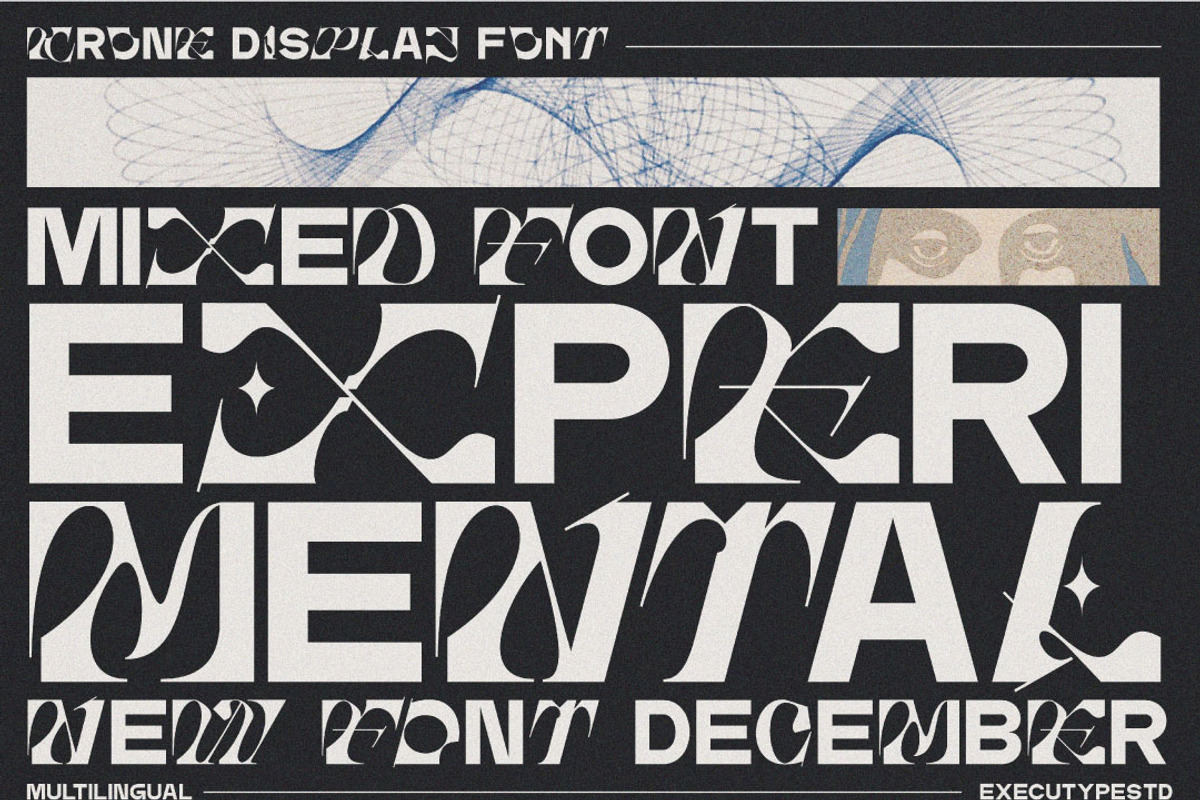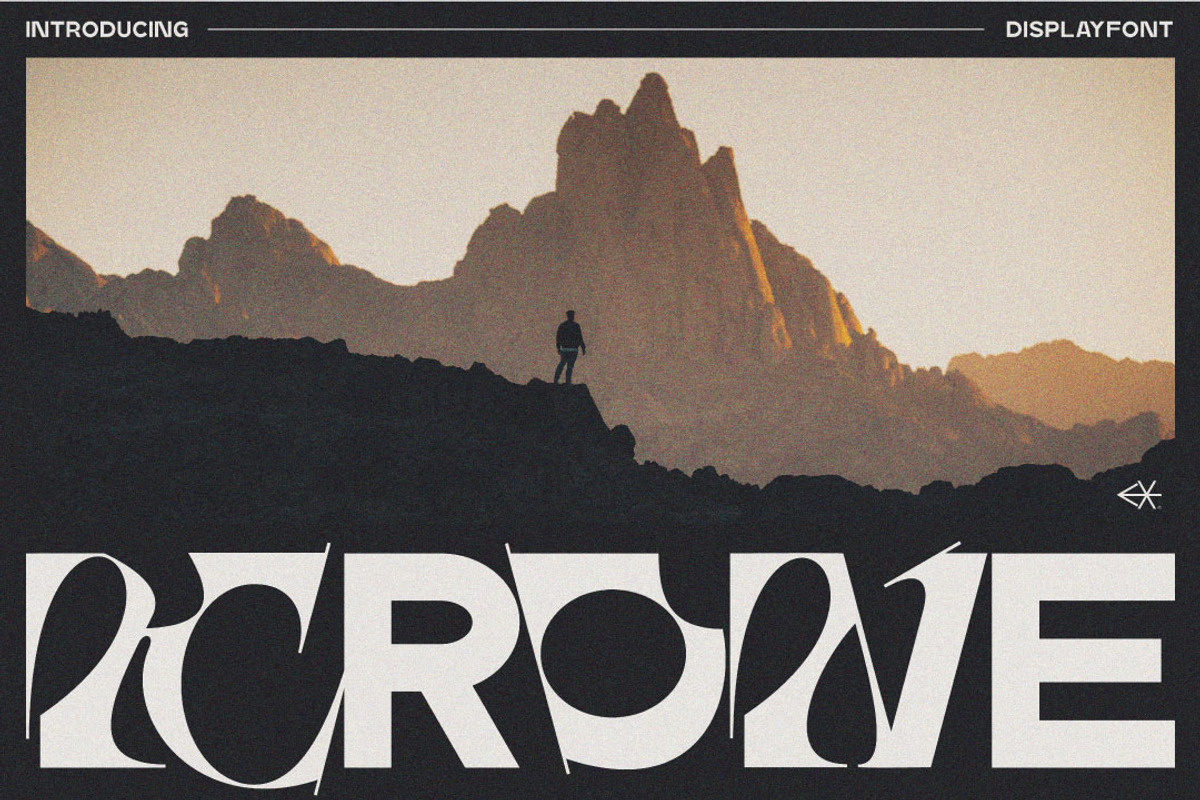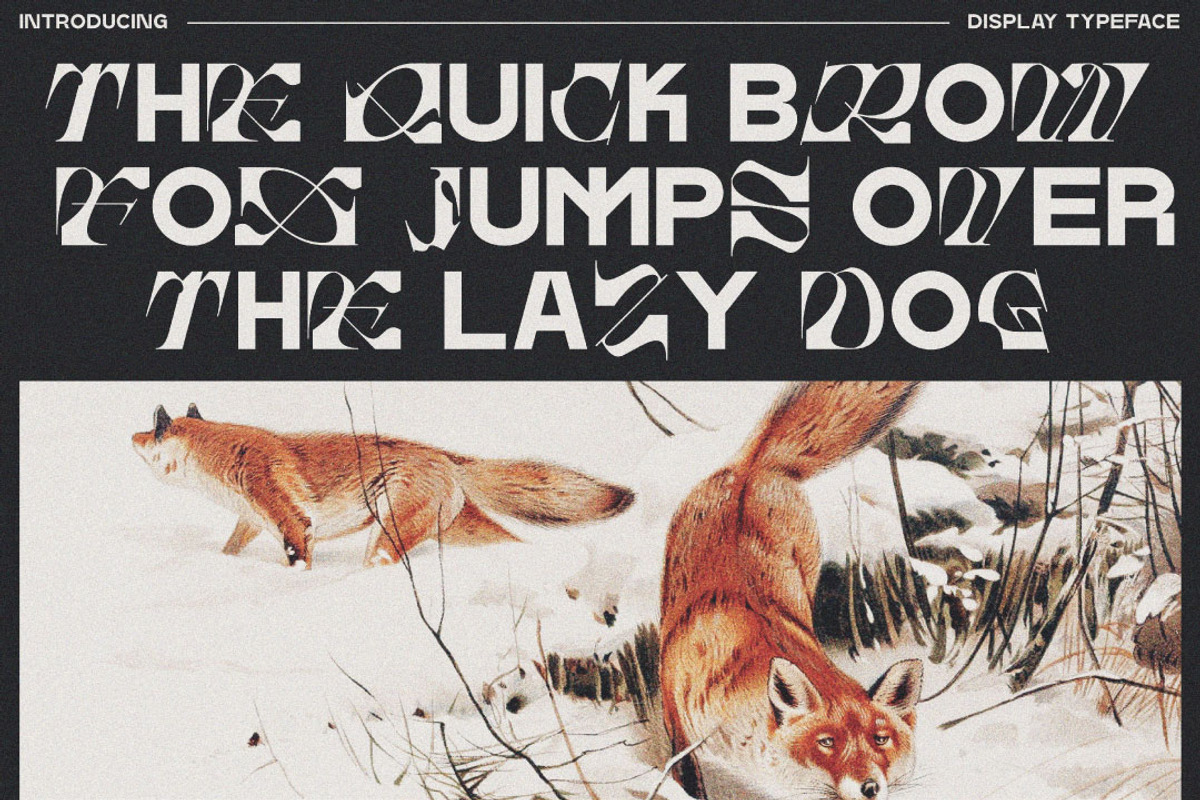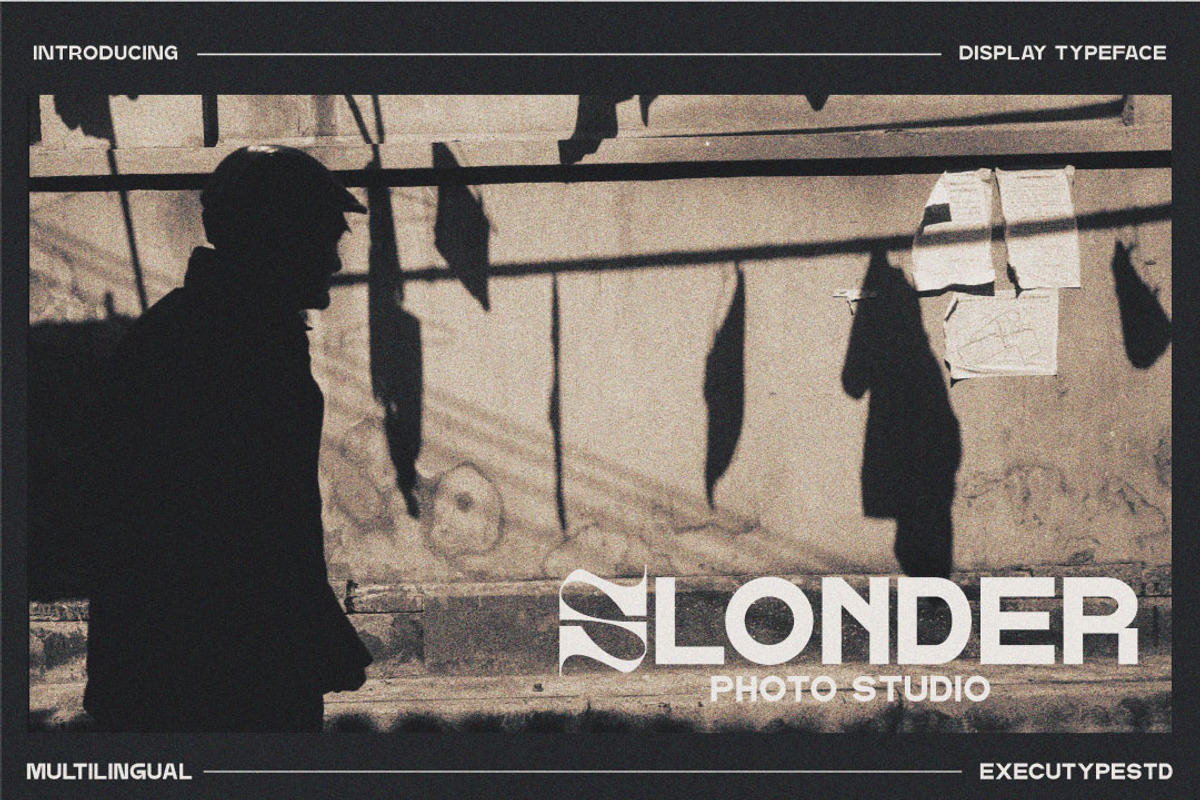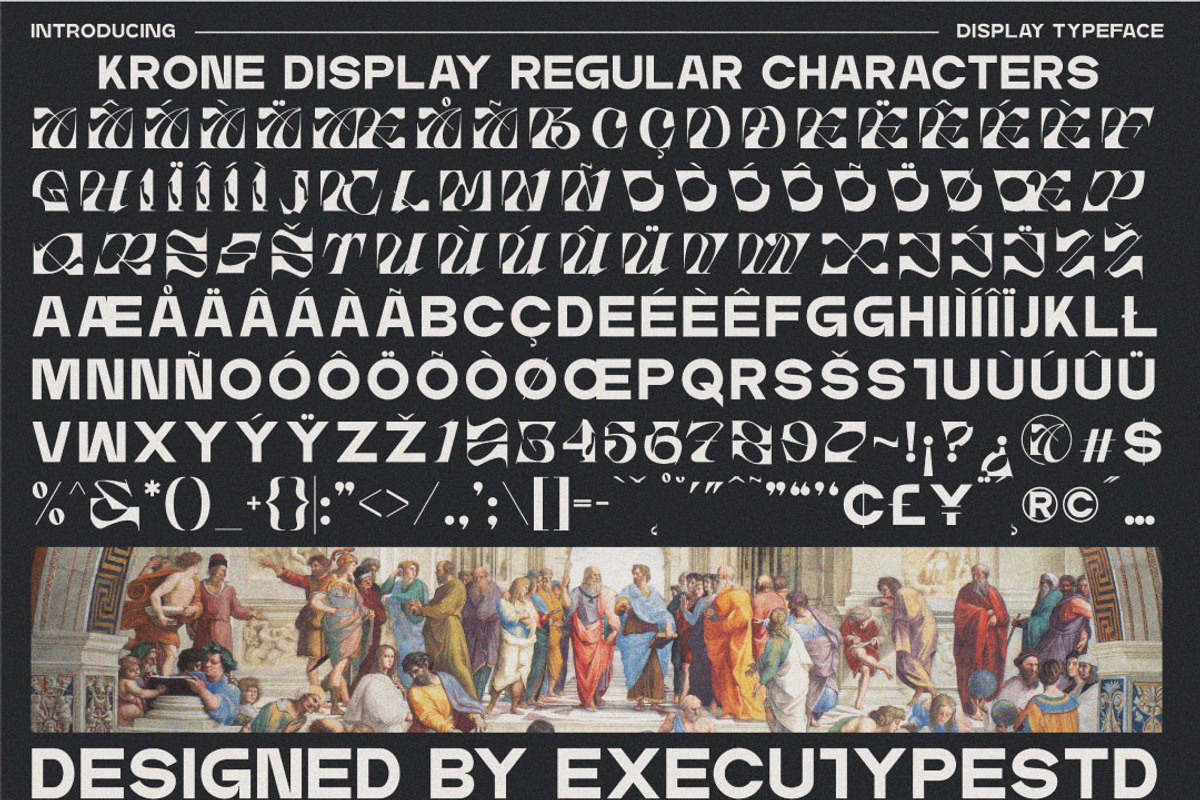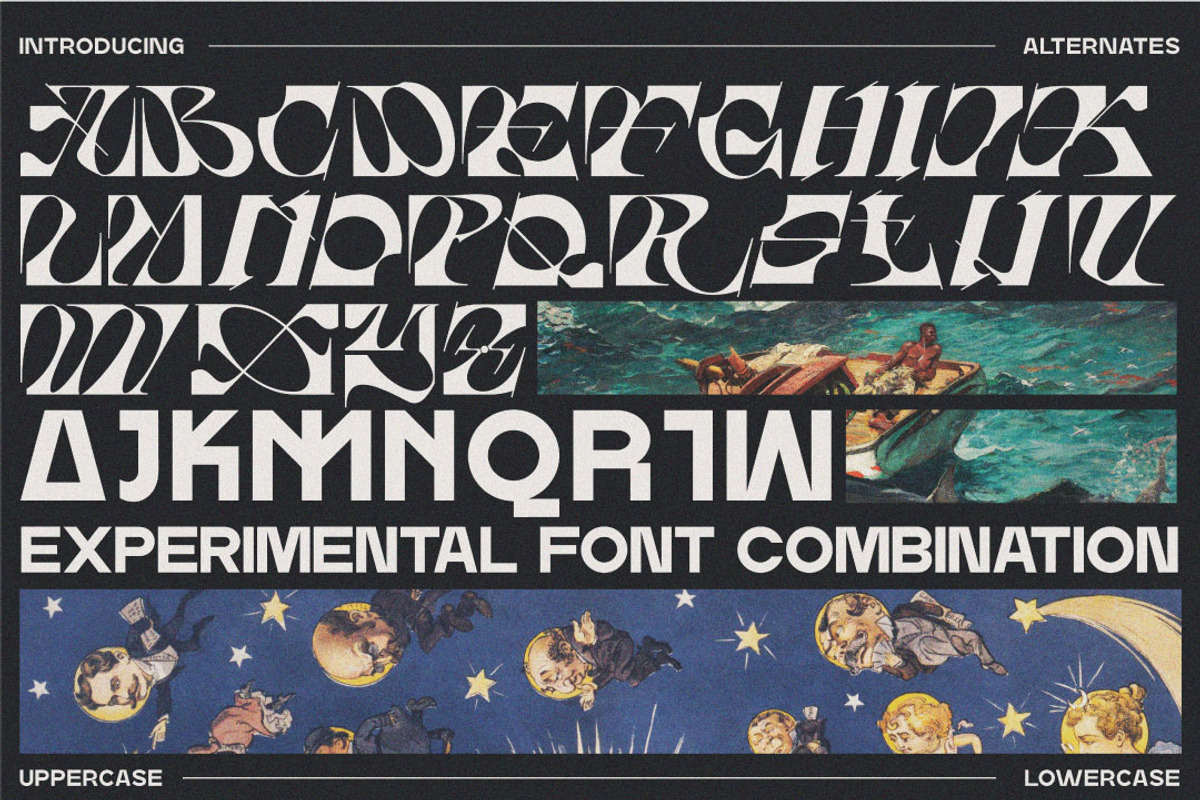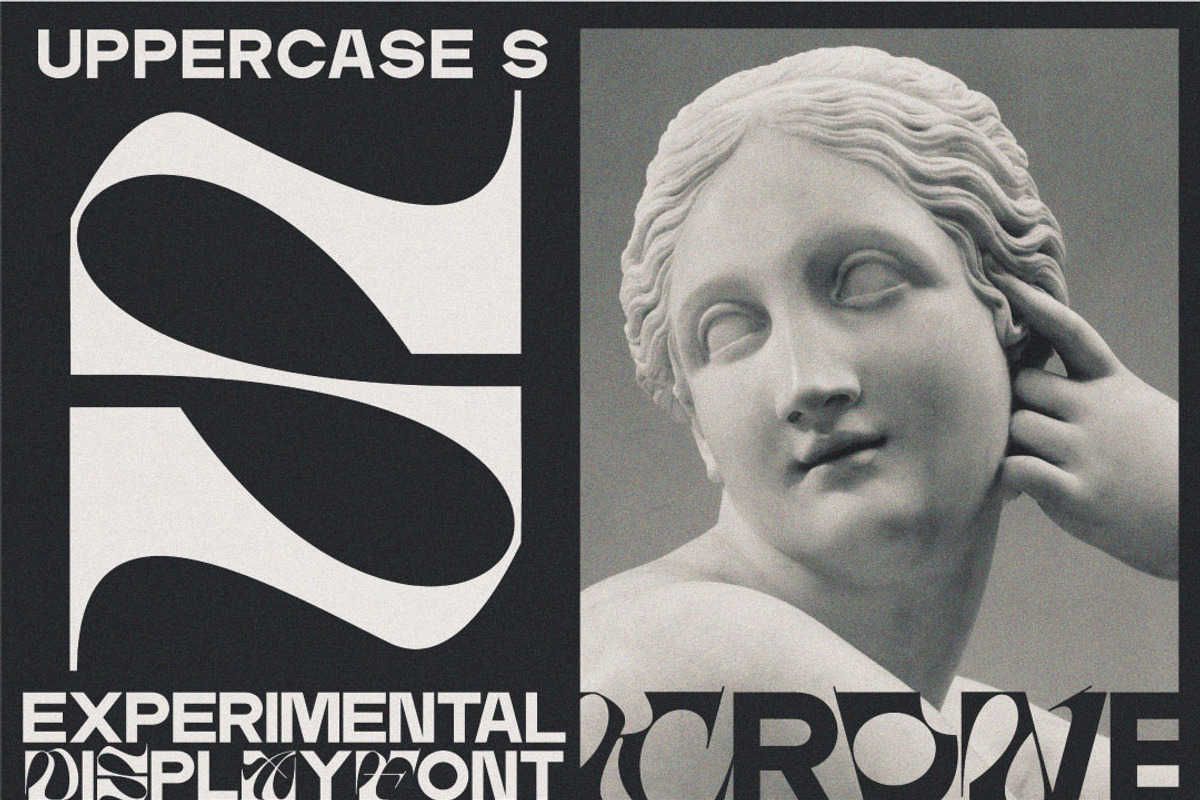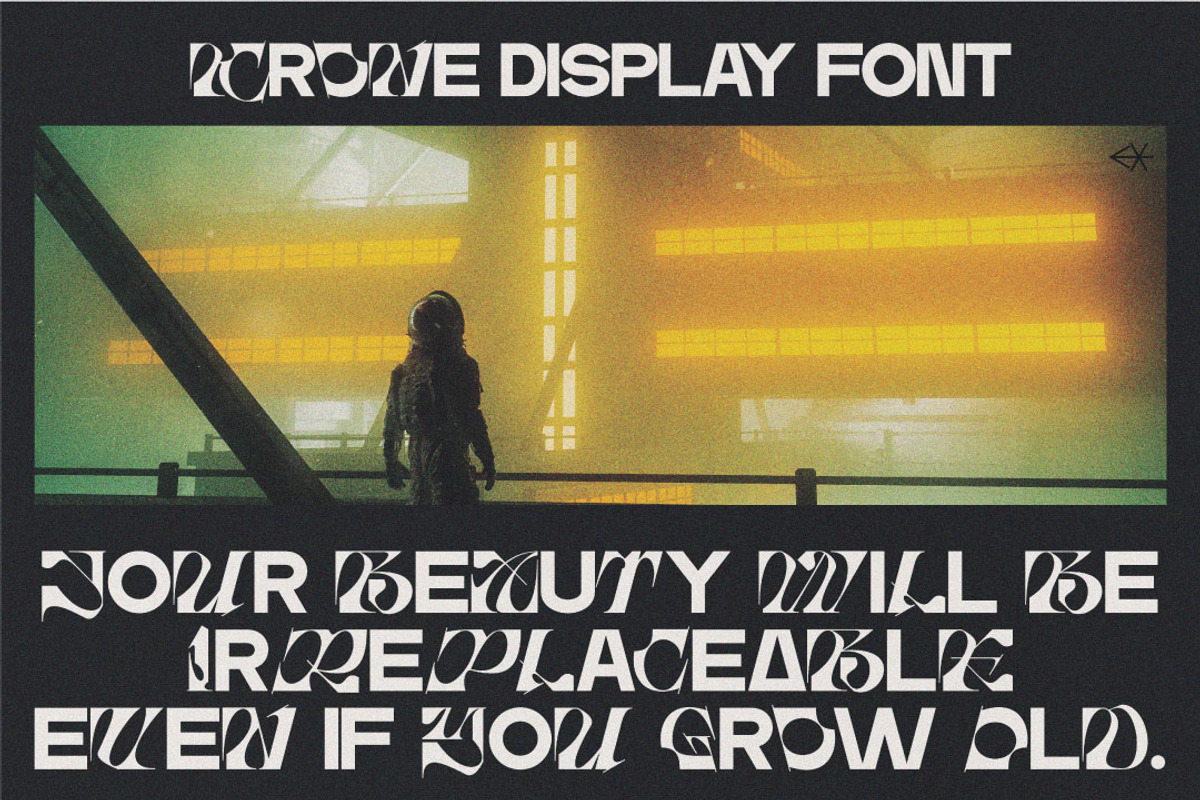
Krone - Mixed Font
Krone Mixed Font is an experimental combination font. include 3 fonts that have a very different style and appearance, but make this font look unique.
This font equipped with several features such as alternative characters, ligatures, and multi-language support that makes it easier for you to design. This font is perfect for your design needs such as poster design, logo design, branding, social media design, book, magazine, etc.
- Unique Letterforms